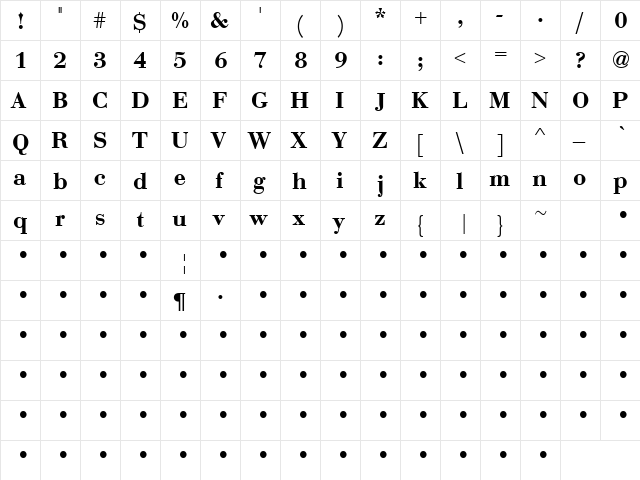
Any Color 6 Bold
Design Context for Any Color 6 Typeface
Any Color 6 takes a measured approach to typography — its balanced proportions and neutral character make it a reliable workhorse for both digital and print work. The heavy weight commands attention and anchors typographic hierarchies.